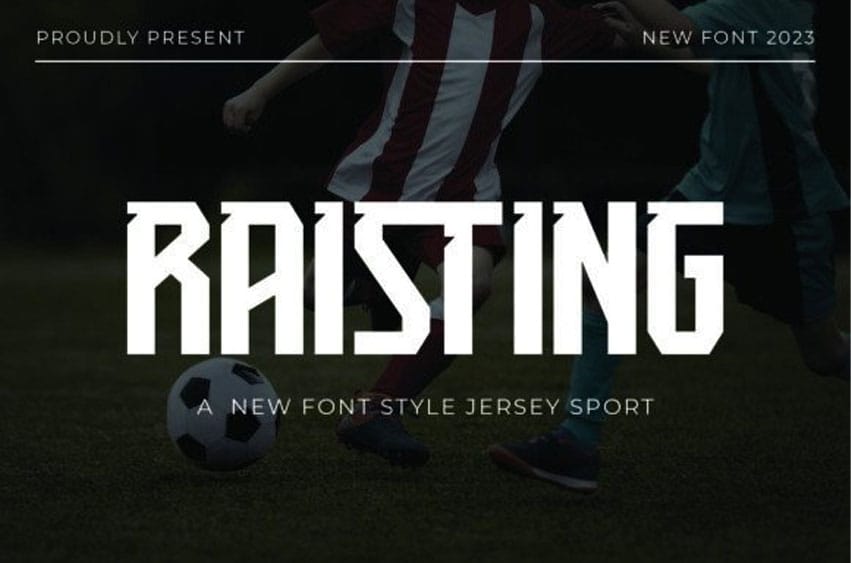
Raisting Font with a calligraphy style, so beautiful on invitations like greeting cards, branding materials, business cards, quotes, posters, and more!